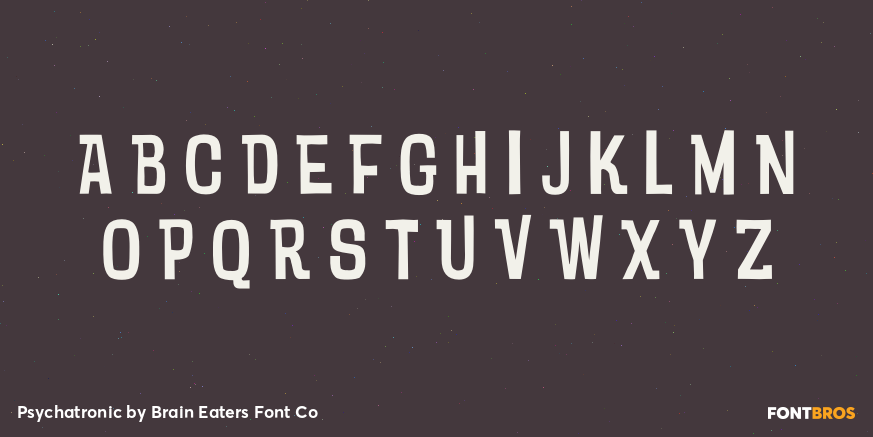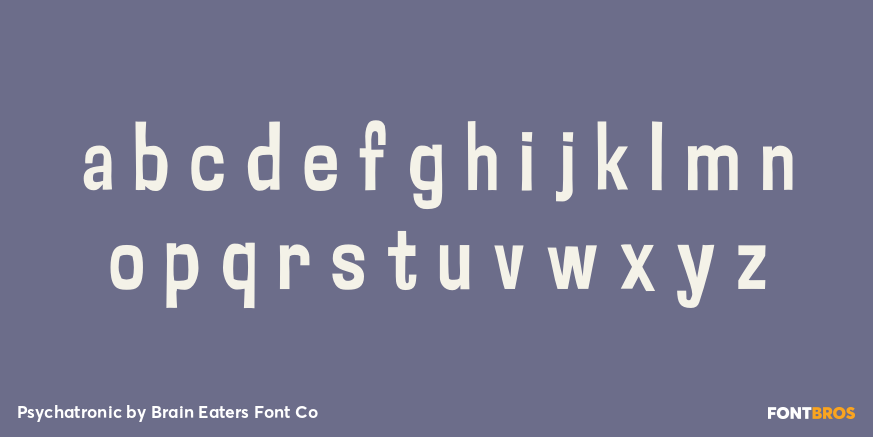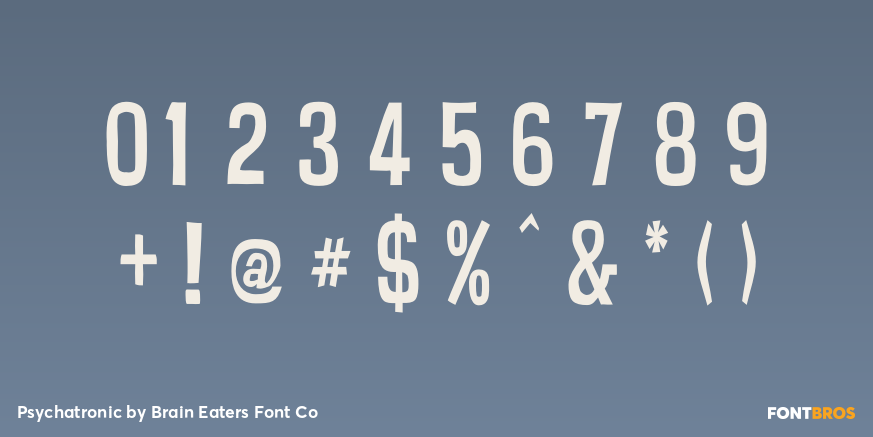
Psychatronic
Font Family by Brain Eaters Font Co
Psychatronic is a retro display font family with a fun, wacky groove and a clear mid-century pop-culture feel. Tagged with 1940s, 1950s, 1960s, and 1970s influences, it brings a playful vintage energy that feels bold, offbeat, and instantly attention-grabbing.
This family includes 8 styles, with Regular, Oblique, Bold, and Bold Oblique cuts plus matching TC versions for added variety. That mix makes it easy to build lively headlines and layered display typography with a little more range than a single novelty face.
Use it anywhere you want throwback character and a spirited visual voice—posters, logos, packaging, apparel graphics, signage, or other decorative display work. It’s an especially strong fit for designs that lean groovy, retro, and proudly unconventional.